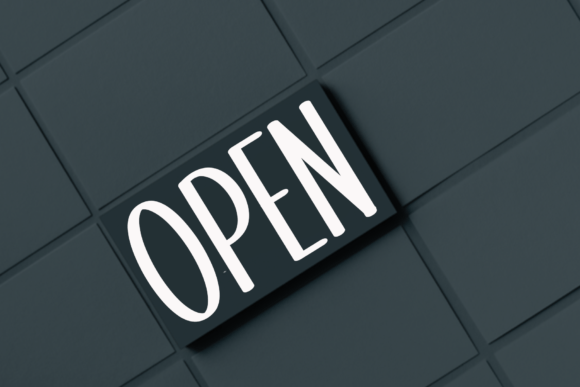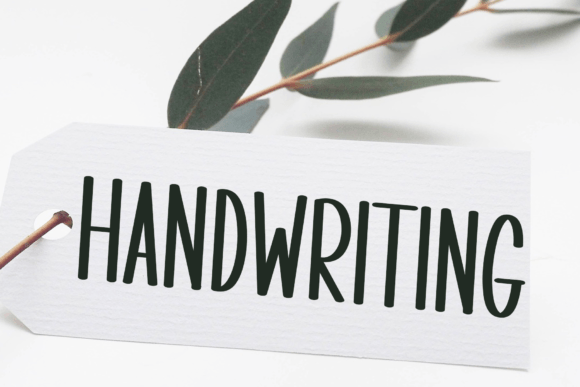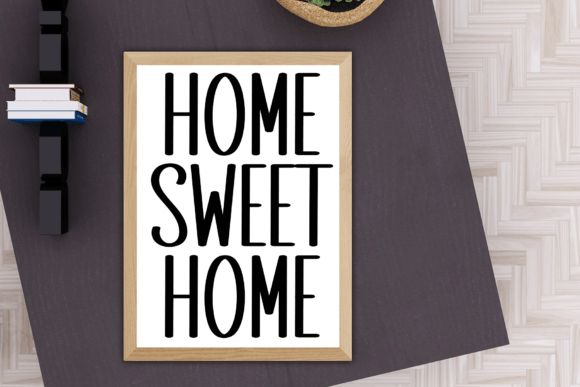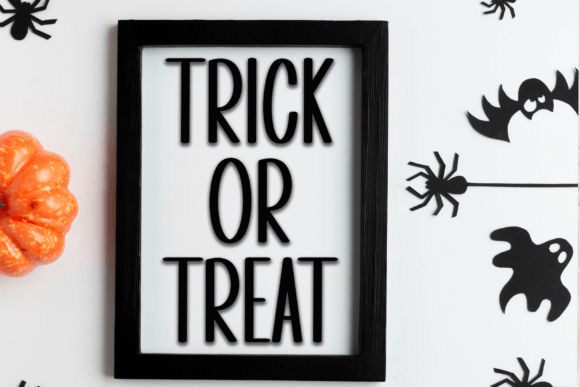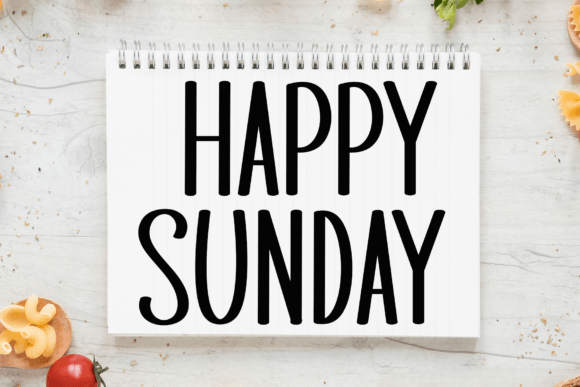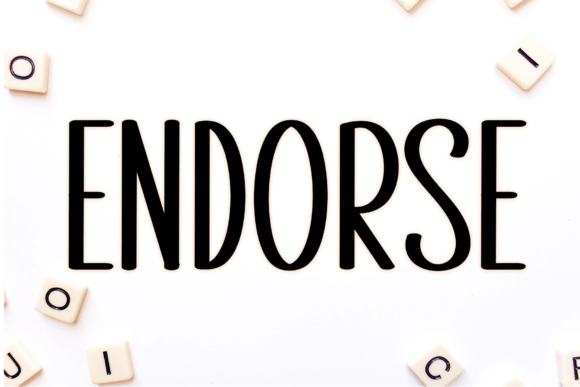
Introducing Endorse Font: The Ultimate Casual Handwritten Font for Designers and Crafters
Are you tired of using the same old fonts in your designs? Look no further! Endorse Font is here to shake things up with its fun and casual handwritten style. This incredibly versatile font is suitable for a wide pool of design ideas, making it a must-have for designers and crafters alike.
What Makes Endorse Font So Special?
Endorse Font is a unique and refreshing addition to any design project. Its handwritten style gives it a personal and approachable feel, making it perfect for designs that require a touch of warmth and personality. Whether you’re working on a branding project, a social media post, or a craft project, Endorse Font is sure to make your design stand out.
One of the best things about Endorse Font is its versatility. It’s incredibly adaptable and can be used in a wide range of design contexts, from playful and casual to elegant and sophisticated. The font’s casual vibe makes it perfect for designs that require a relaxed and friendly feel, such as:
- Branding and packaging designs
- Craft and DIY projects
- Blog and website designs
Key Features of Endorse Font
So, what makes Endorse Font so special? Here are some of its key features:
- Handwritten style: Endorse Font has a unique and authentic handwritten style that gives it a personal and approachable feel.
- Versatility: This font is incredibly versatile and can be used in a wide range of design contexts.
- Easy to read: Despite its casual style, Endorse Font is easy to read and understand, making it perfect for body text and headings.
- High-quality design: Endorse Font is designed with high-quality craftsmanship in mind, ensuring that it looks great in any design project.
How to Use Endorse Font in Your Designs
Using Endorse Font in your designs is easy! Here are some tips to get you started:
- Pair it with other fonts: Endorse Font pairs well with other fonts, so don’t be afraid to experiment with different combinations.
- Use it for headings and titles: Endorse Font is perfect for headings and titles, where its casual style can really shine.
- Add some personality: Use Endorse Font to add some personality to your designs, whether it’s through a playful logo or a fun social media post.
Why Designers and Crafters Love Endorse Font
Designers and crafters love Endorse Font for many reasons. Here are a few:
- Unique style: Endorse Font has a unique and refreshing style that sets it apart from other fonts.
- Ease of use: This font is easy to use and can be incorporated into a wide range of design projects.
- Versatility: Endorse Font is incredibly versatile, making it perfect for designers and crafters who like to experiment with different design ideas.
In conclusion, Endorse Font is a fun and casual handwritten font that’s perfect for designers and crafters who want to add some personality to their designs. Its versatility, ease of use, and unique style make it a must-have for any design project. So why not give Endorse Font a try and see how it can elevate your designs?
Whether you’re a seasoned designer or a crafter looking for a new font to add to your collection, Endorse Font is sure to impress. With its casual vibe and high-quality design, it’s the perfect addition to any design project. So go ahead, get creative, and see what amazing designs you can create with Endorse Font!